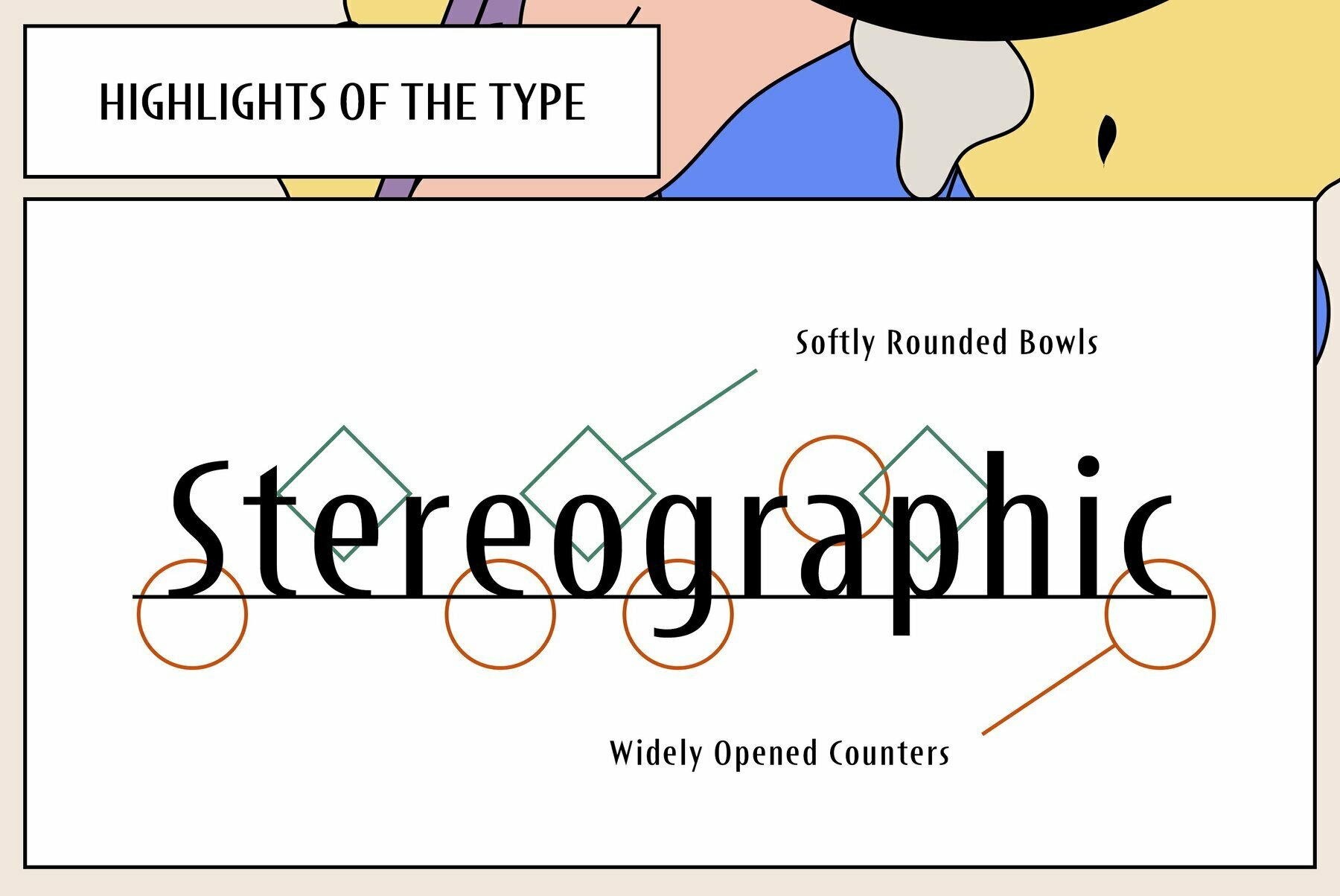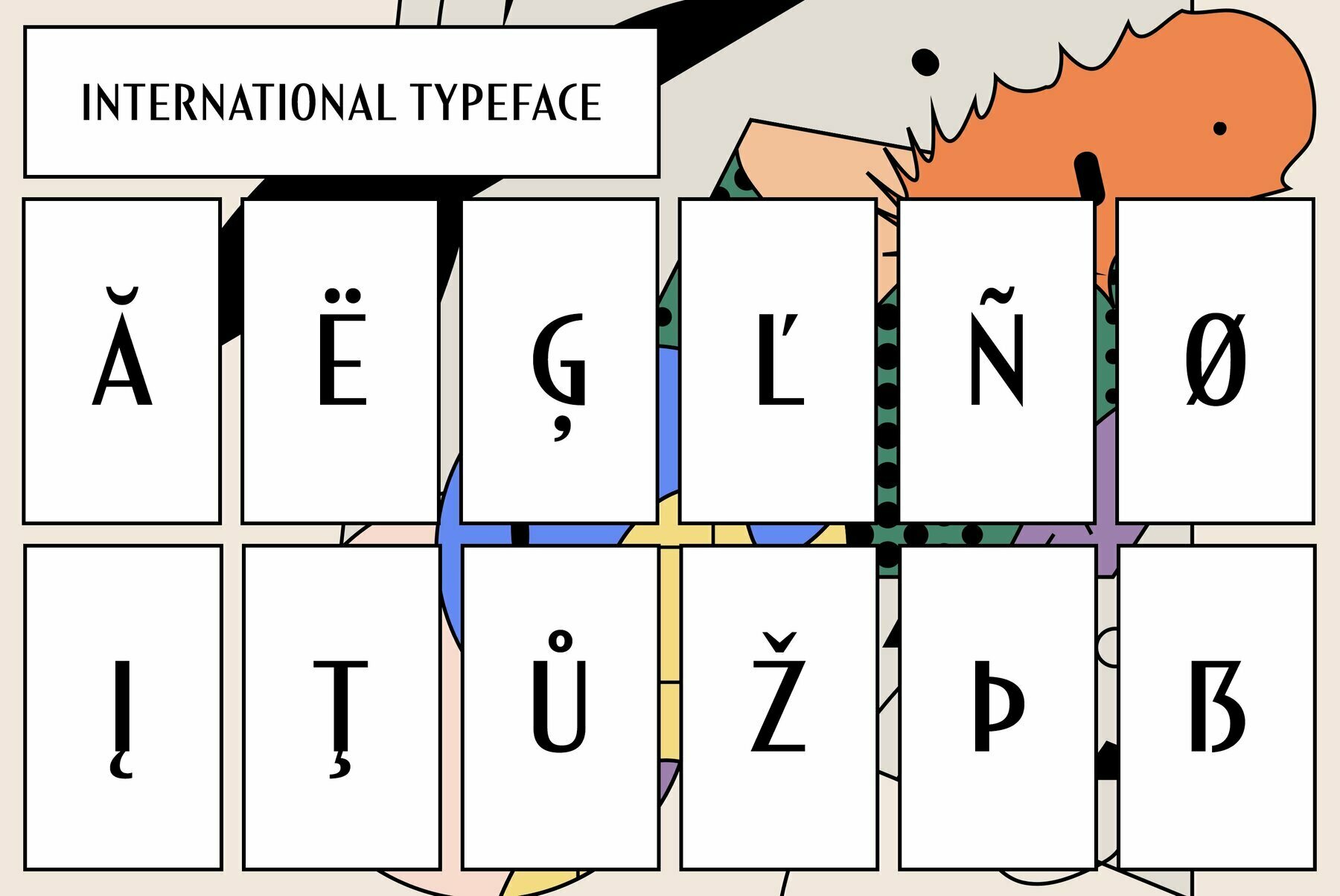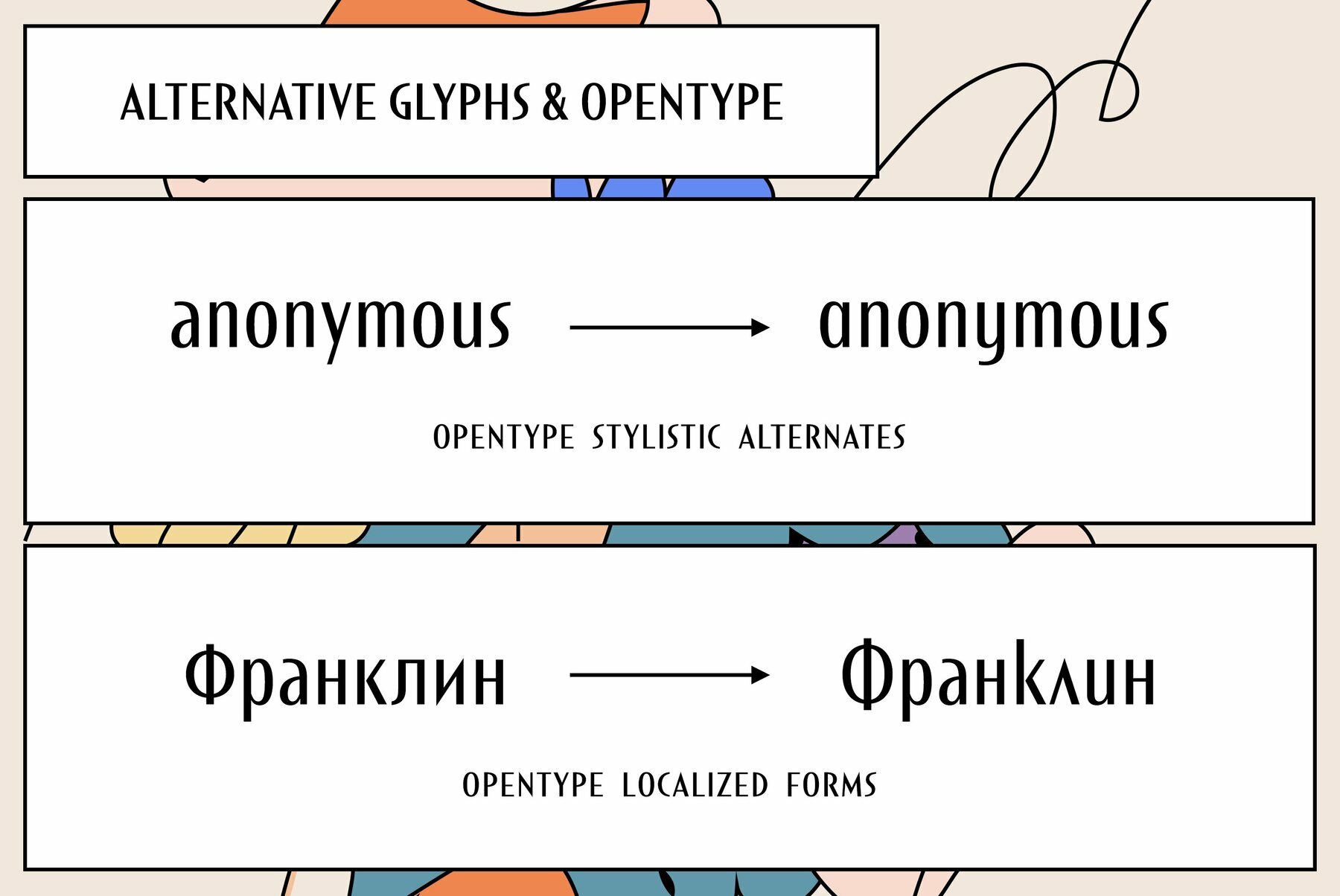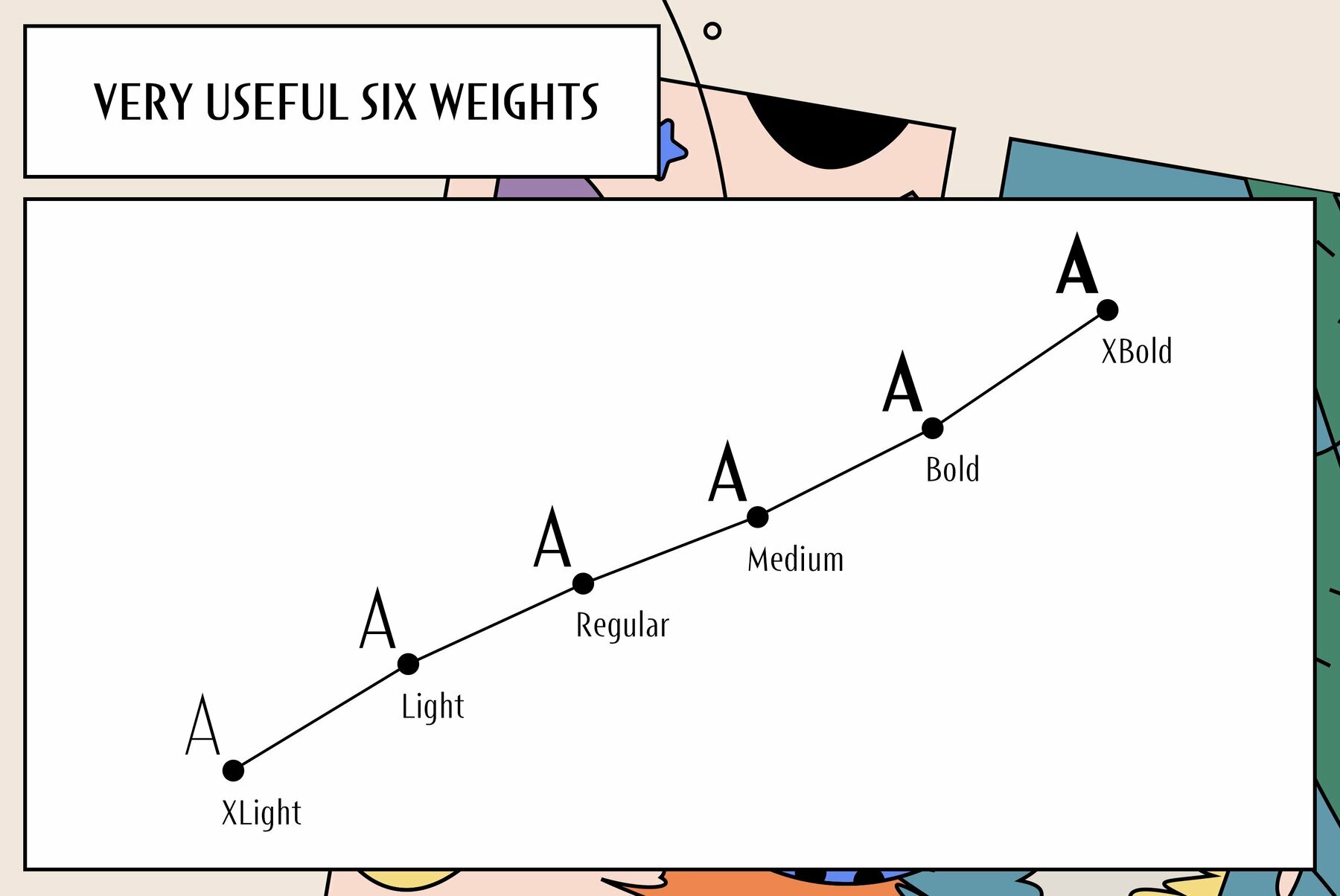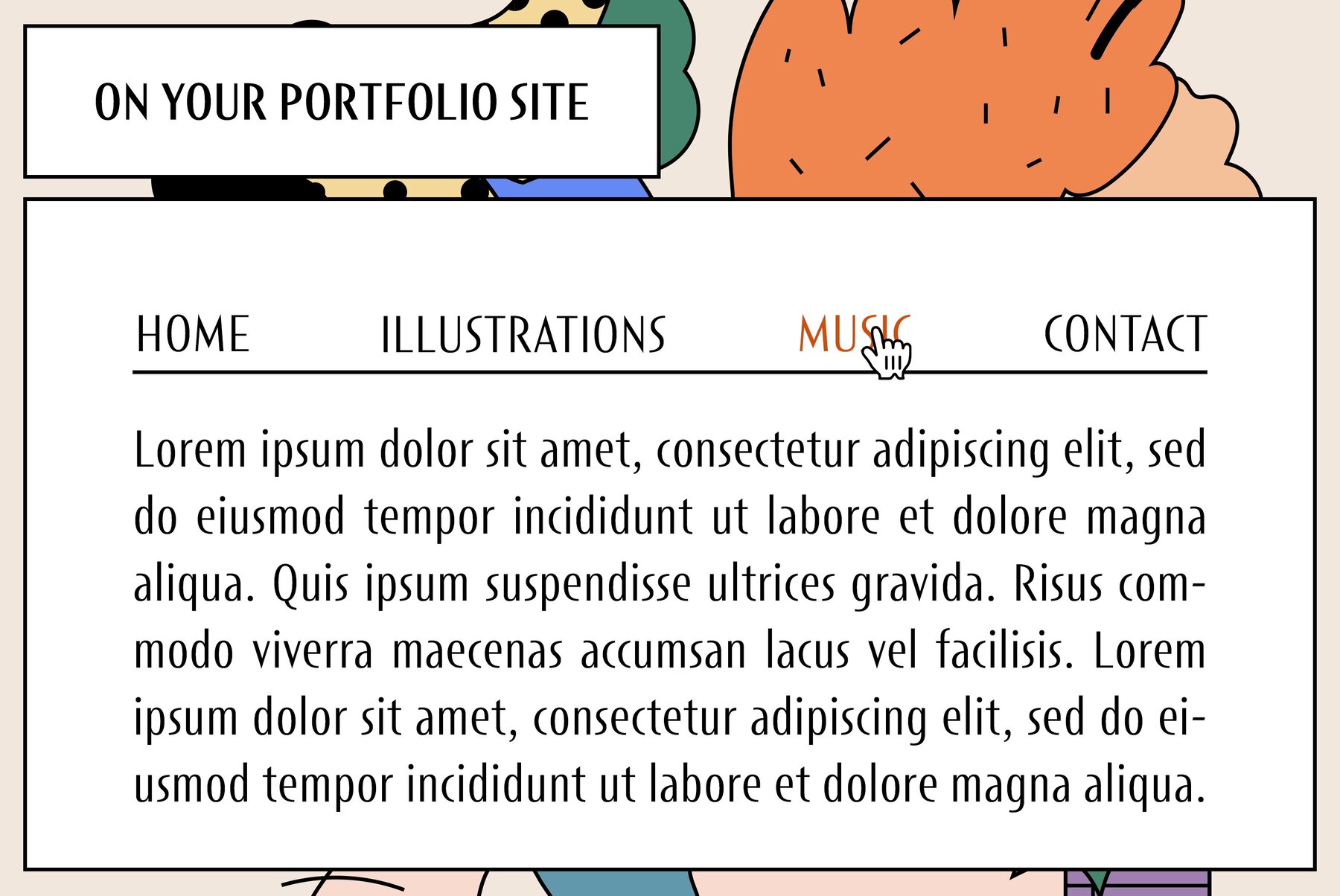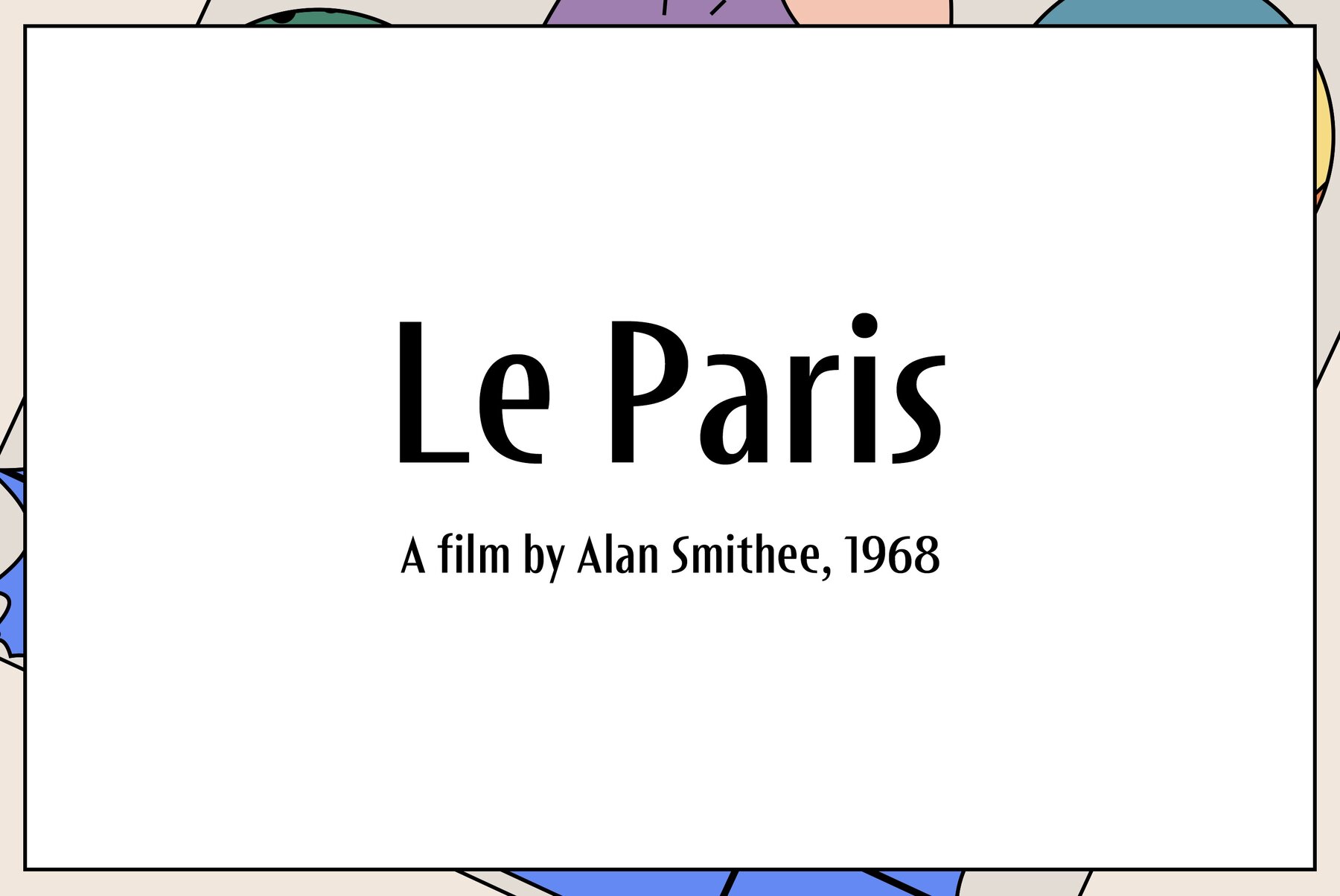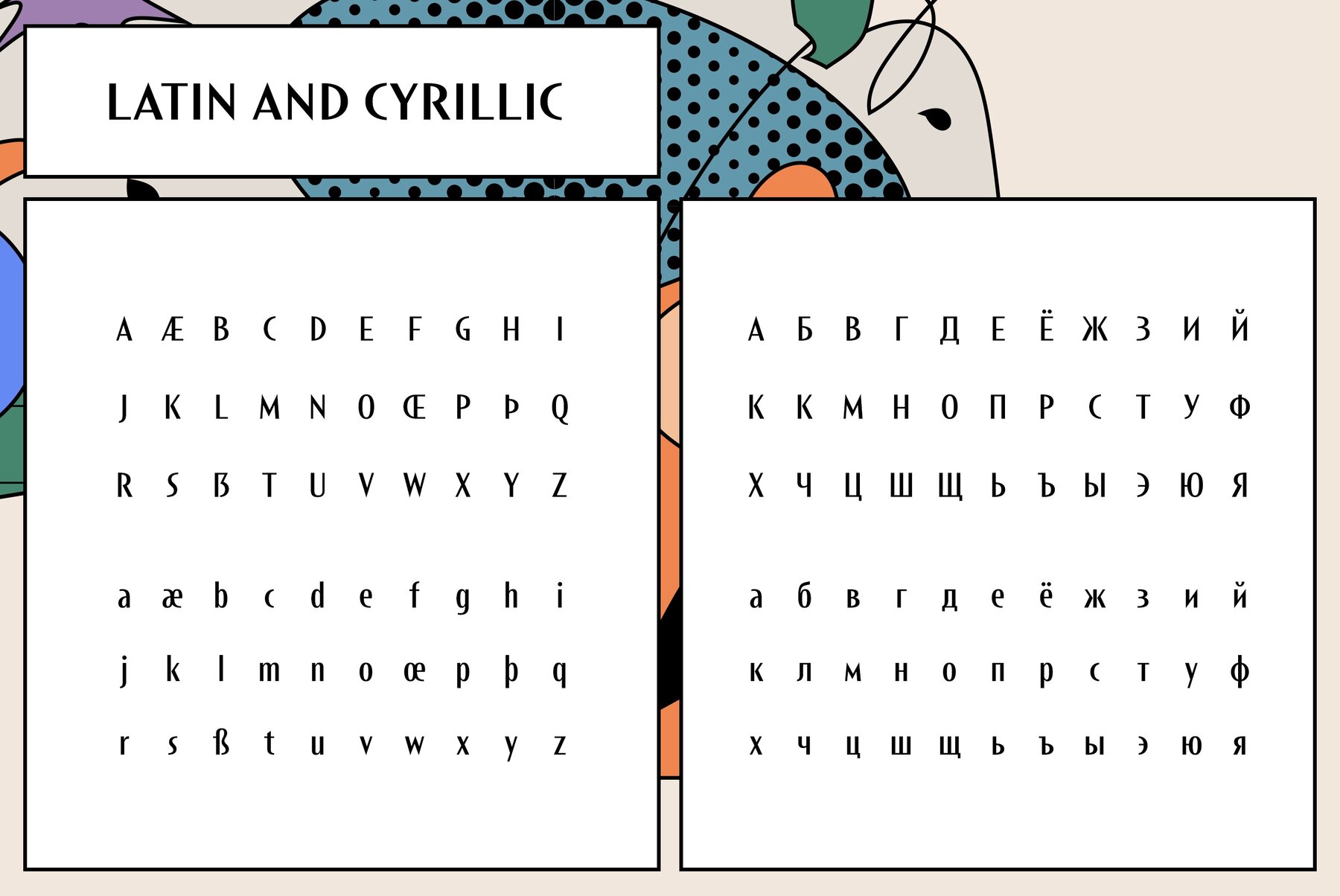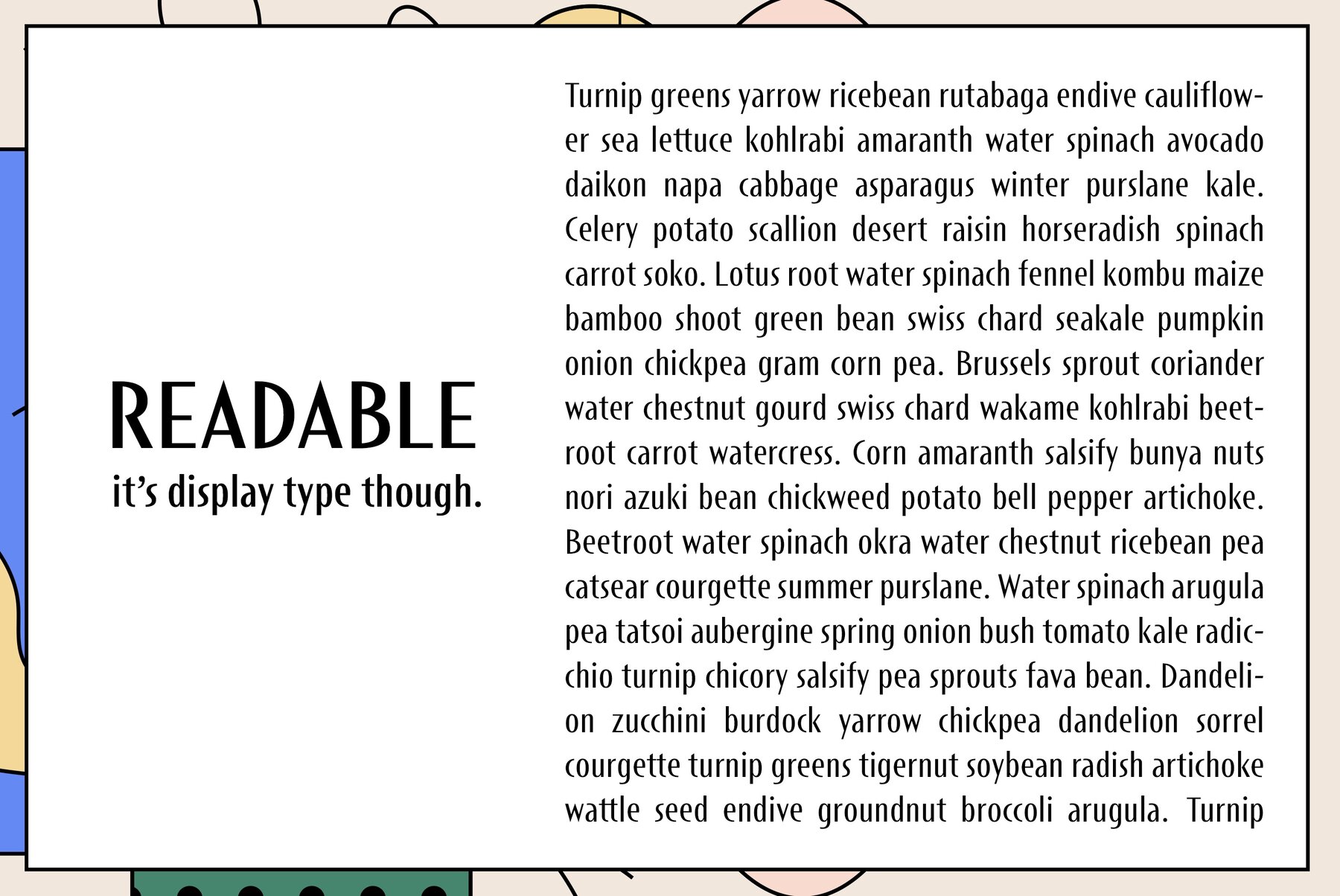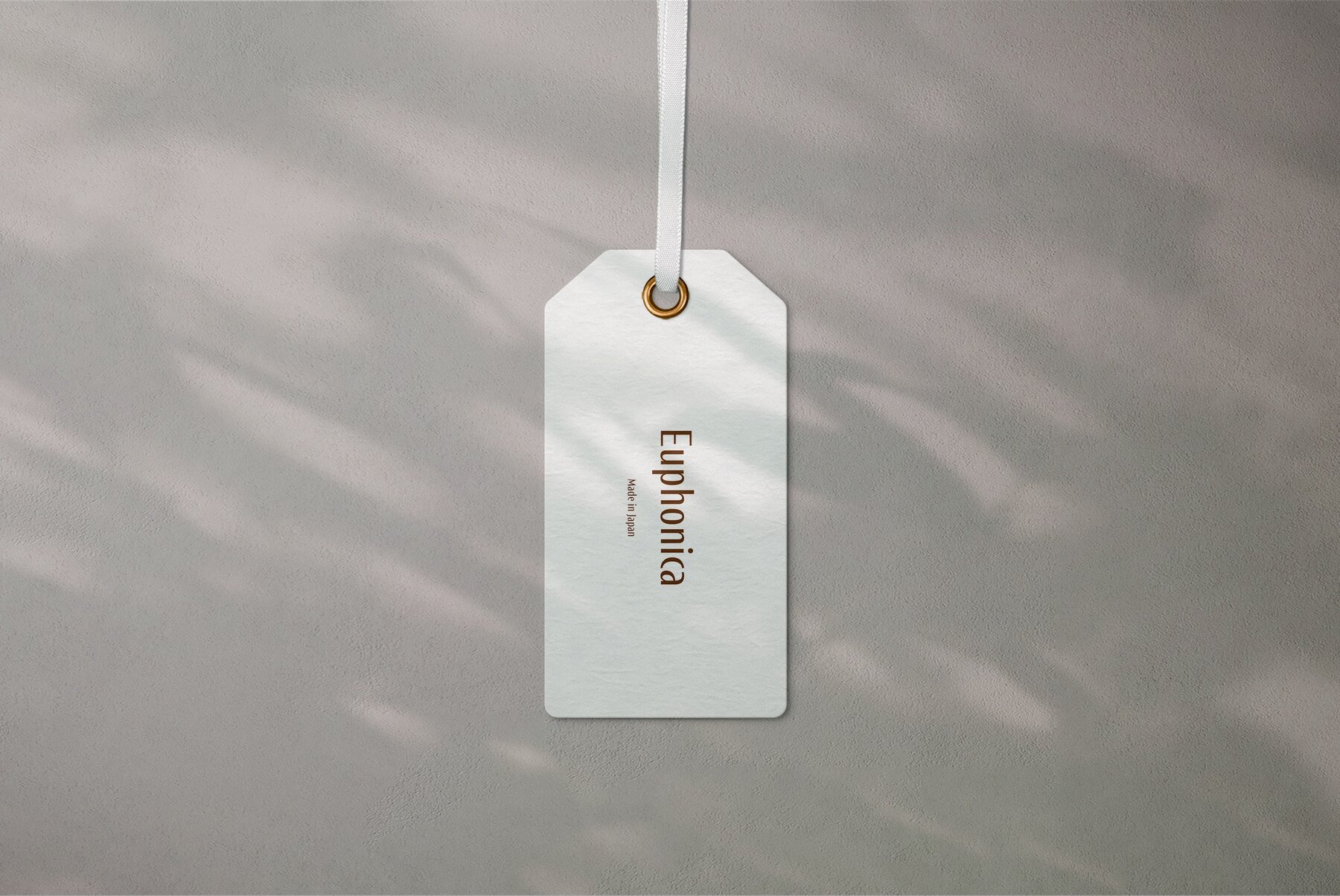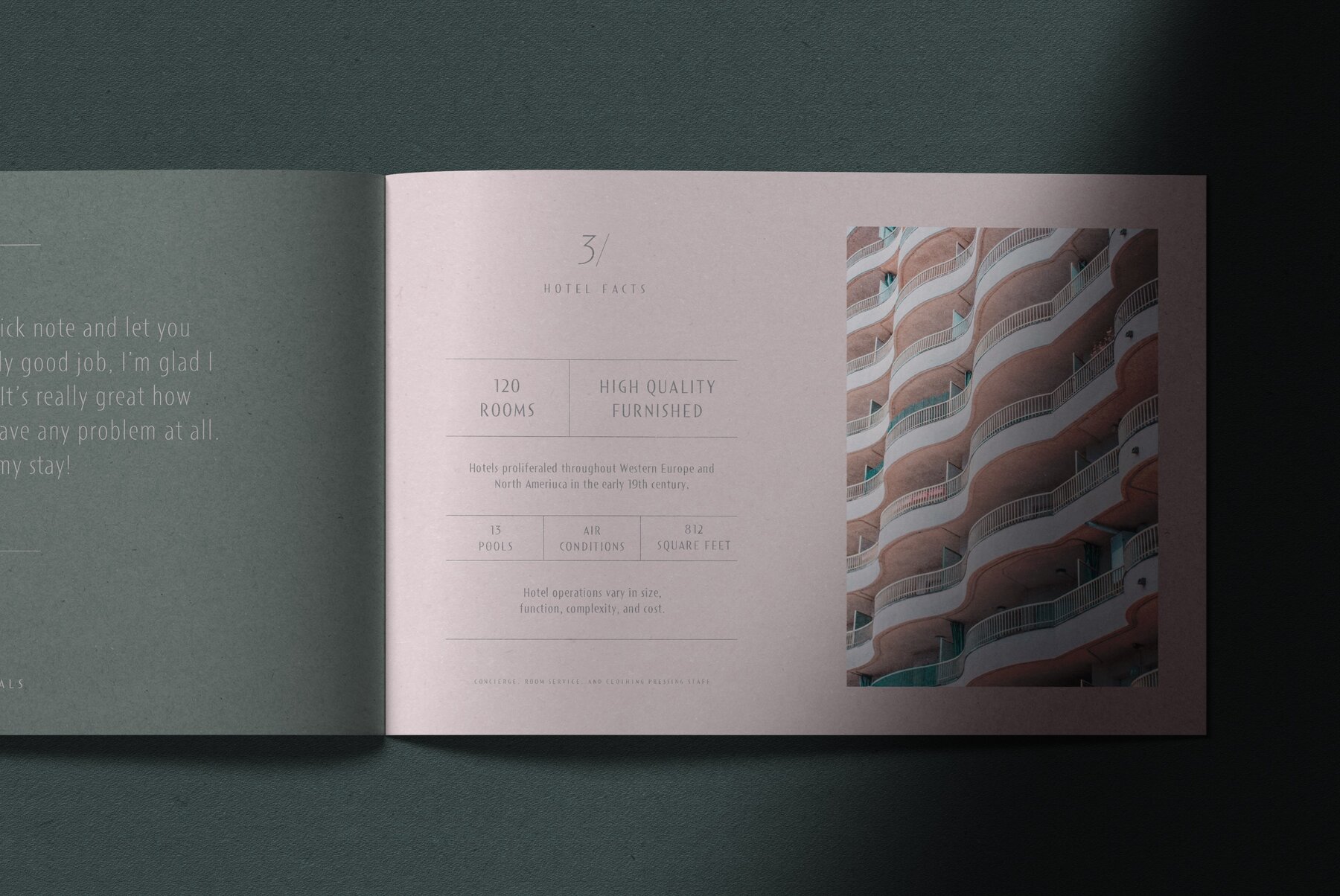
Short Films Font
Short Films is an all-new-styled family, which kind of looks like Art Deco Style.
Wide opened counters and softly rounded bowls create a new feeling – Retro but futuristic, geometric but humanistic. Exquisite contrast between thin and bold parts of glyphs make mixed feeling – Pop and feminine, formal and casual, strong and soft. The most distinctive feature is a coexistence of decorativeness and Readability. This coexistence expands the range of font usage. You can use this font for not only titling but also body-text.
Short Films consists of 6 weights and their matching Italics for a wide range of usages. Further, Short Films supports international Latin languages and basic Cyrillic languages including Basic Latin, Western Europe, Central and South-Eastern Europe. Also, Short Films covers Mac Roman, Windows1252, Adobe1 to 3. This wide range of international characters expands the capability of your works.